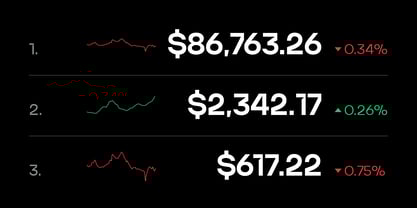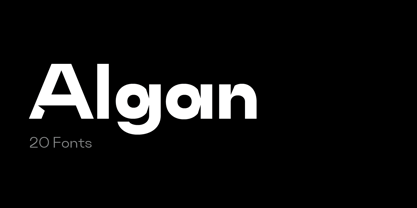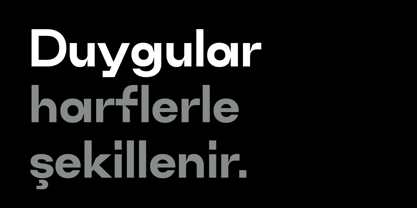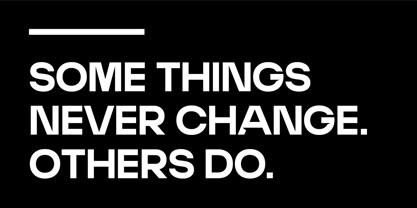
Algan
by Serdar Ozturk
The Algan Font Family was designed by Serdar Öztürk and published by Serdar Ozturk. Algan contains 20 styles and family package options.
Algan is a contemporary sans serif typeface built on the harmony of form and function. Its clean geometry and subtle softness make it ideal for modern branding, editorial design, and digital interfaces. With 20 weights, Algan adapts effortlessly to both minimal layouts and expressive typographic compositions. It includes extensive multilingual support and advanced OpenType features for professional typography.